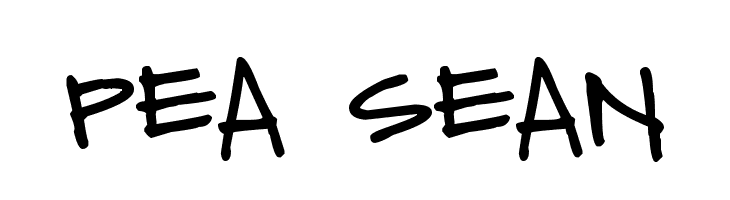
A playful, handwritten font with rounded edges and a casual, friendly vibe.
A playful, handwritten font with rounded edges and a casual style.
A playful, handwritten font with an informal and whimsical style.
A playful, handwritten font with rounded edges and a whimsical style.
A segmented, geometric font inspired by classic LCD digital displays.
A playful, bold, handwritten-style font with rounded characters.
A decorative font with intricate leaf patterns in each character.
A bold, high-contrast serif font with dramatic strokes and elegant curves.
A bold, italic serif font with dynamic slant and strong presence.
A digital, segmented font inspired by LED displays, offering a modern and futuristic look.
A 3D digital display-inspired font with angular, geometric shapes.
A digital, segmented font with a futuristic LED display style.
A futuristic, digital-inspired font with a condensed and italicized style.
A futuristic, segmented font inspired by digital displays.
A futuristic, digital-style font with an italicized, expanded design.
A futuristic, segmented font with an italic slant, inspired by LED displays.
A digital-inspired font with angular, segmented lines resembling LED displays.
A segmented, digital-style font inspired by LED displays.
A digital, segmented font with a geometric, LED display style.
A digital-inspired font with geometric, segmented characters and an expanded width.
A dot-based, digital-style font with a modern, pixelated appearance.
An elegant serif font with decorative swirls and flourishes.
A sophisticated script font with elegant swashes and flowing cursive style.
A bold, geometric font with a futuristic and industrial style.
A bold, geometric 3D font with a modern, industrial style.
A bold, 3D italic font with a futuristic and dynamic design.
A bold, geometric font with a three-dimensional beveled edge.
A bold, italicized font with a beveled, three-dimensional style.
A bold, geometric typeface with strong, angular lines and a modern aesthetic.